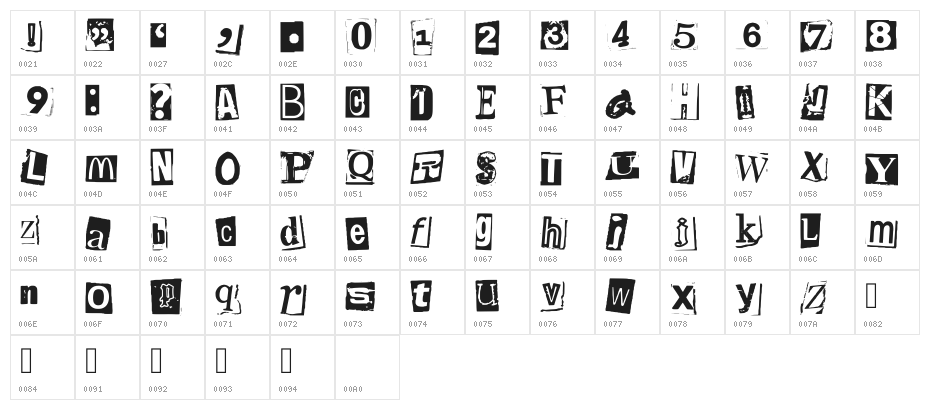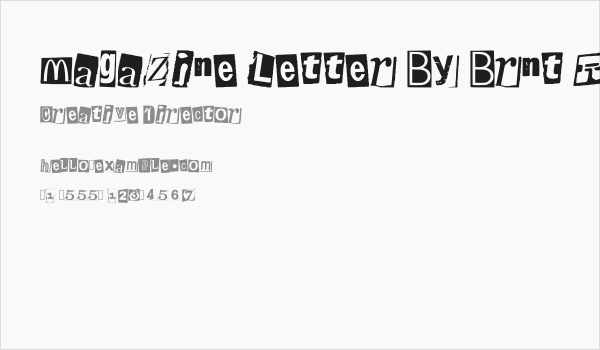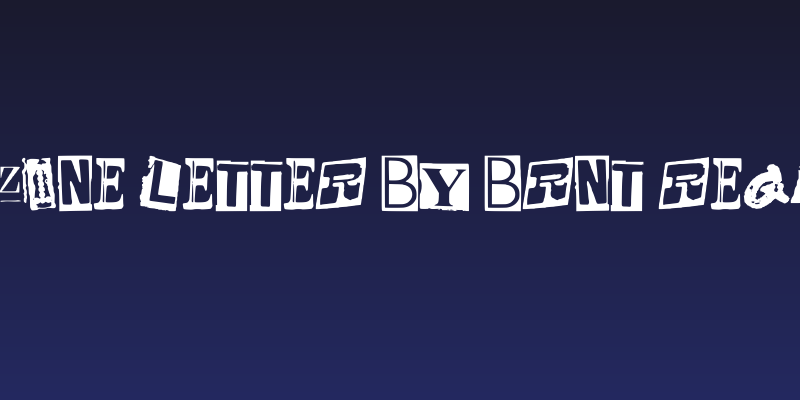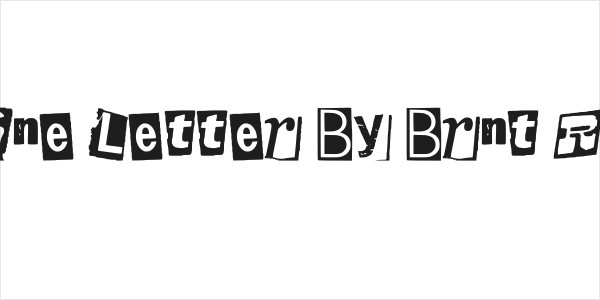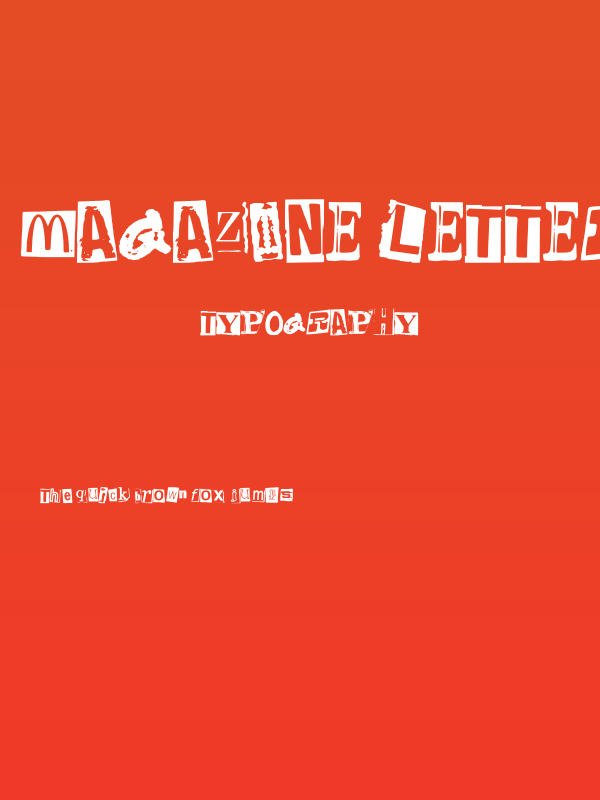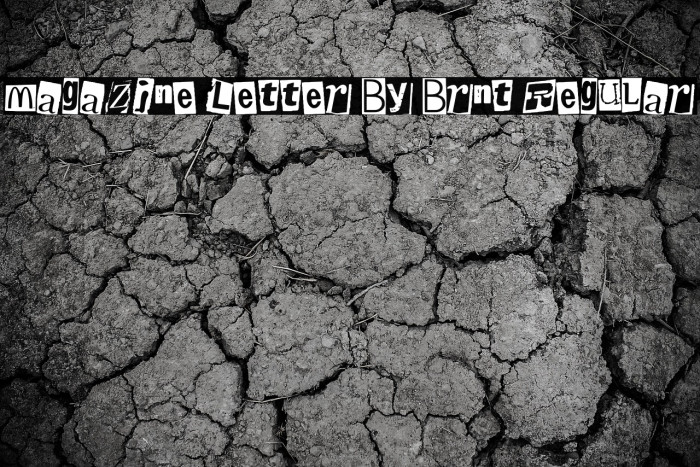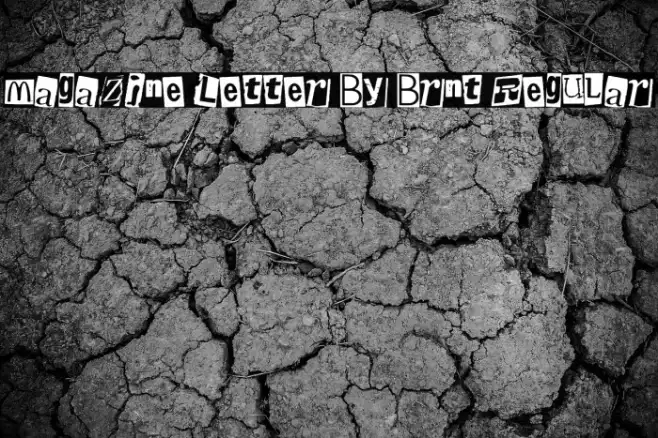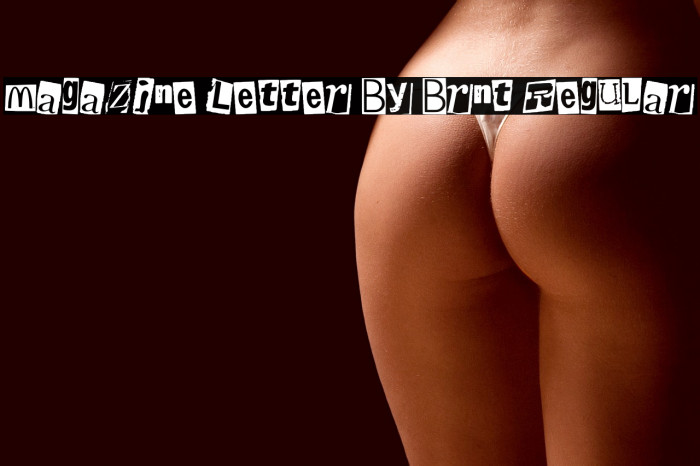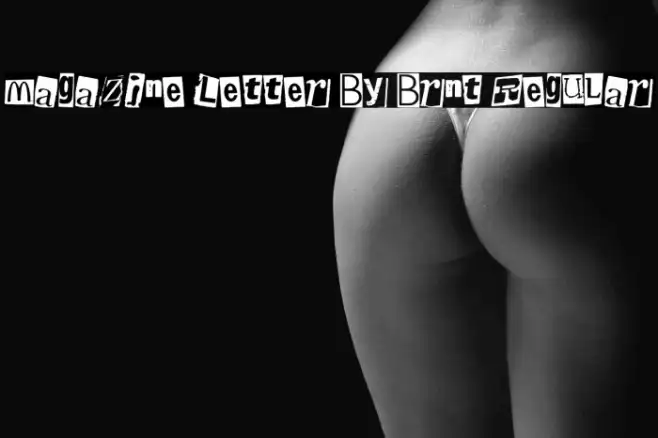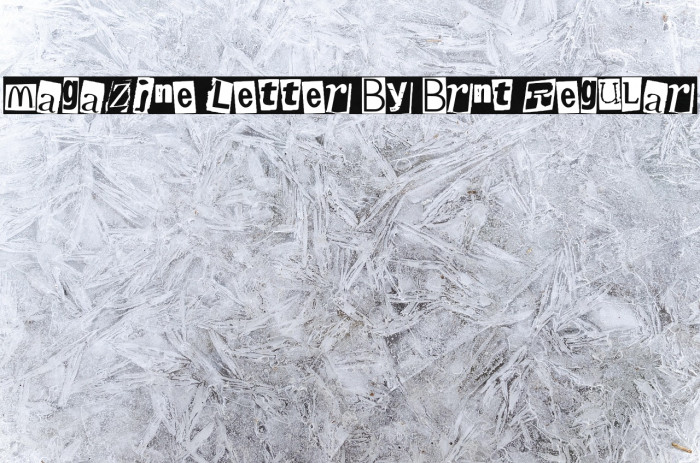
Magazine Letter By Brnt Regular Font
Magazine Letter By Brnt Regular Description
This font features a unique and eclectic style, reminiscent of letters cut out from magazines or newspapers. Each character is distinct, with varying backgrounds and textures, creating a collage-like appearance. The letters are bold and eye-catching, with a mix of uppercase and lowercase styles that add to its quirky and artistic feel. The numbers and special characters follow the same design principle, making the font suitable for creative and unconventional projects. The overall look is chaotic yet organized, perfect for making a statement.
| Use Case | Headlines, Logos, Artistic projects |
| Proposed Projects | Ideal for creative projects such as posters, album covers, zines, and any design requiring a bold, artistic touch. |